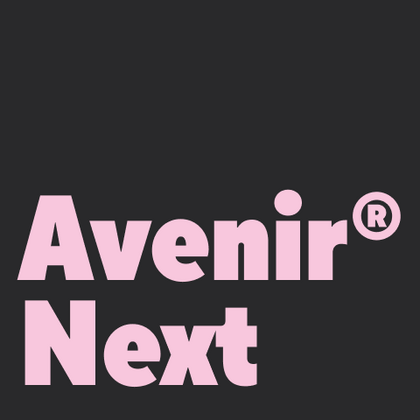
Avenir Next
Linotype · 2012
Avenir Next is a modern reinterpretation of the classic Avenir typeface, designed to enhance its technical standards and expand its usability. Known for its clean and straightforward design, it excels in both on-screen and print applications, making it suitable for a variety of contexts including branding, editorial design, and user interfaces. The typeface features a wide range of weights and condensed styles, ensuring versatility in design.